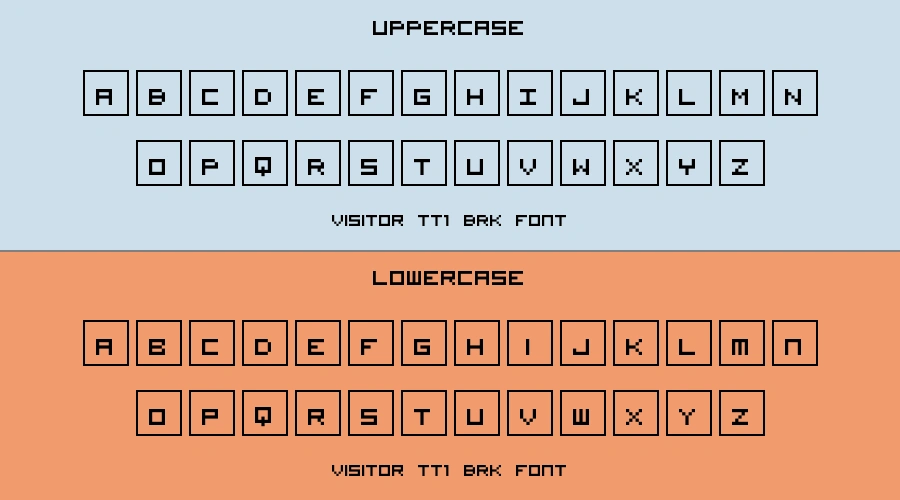
About Visitor TT1 BRK Font
Visitor TT1 BRK Font embodies typographic excellence through its masterful combination of fluid motion and excellent legibility. Created for corporate reports, this typeface delivers exceptional adaptability and professional finish across all applications. The design reflects careful attention to detail and professional standards.
Advanced capabilities include distinctive sharp edges and versatile historical accuracy, giving designers creative control. When used in section headers, Visitor TT1 BRK Font exhibits remarkable archive stability. The harmonious balance between cap height ratio and professional recognition sets this typeface apart.